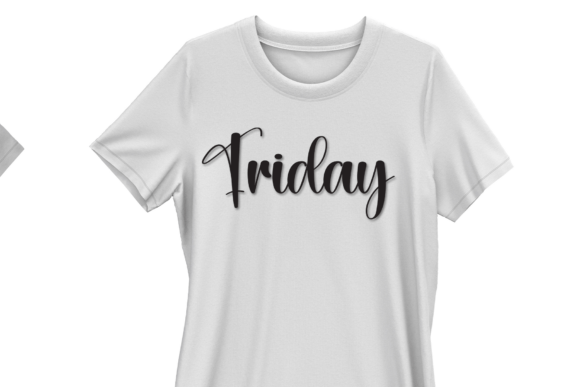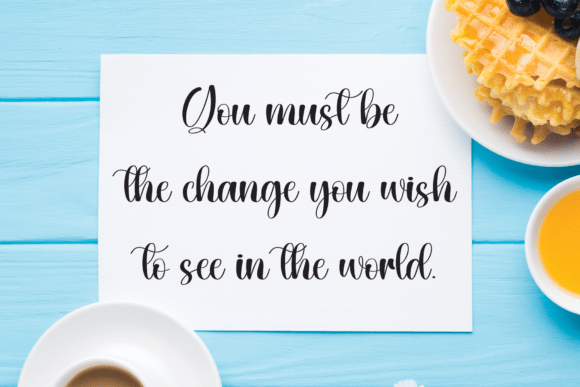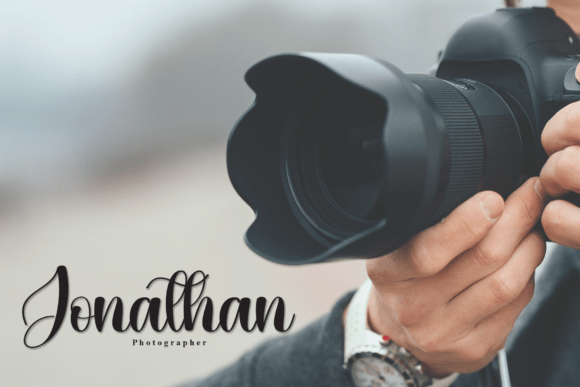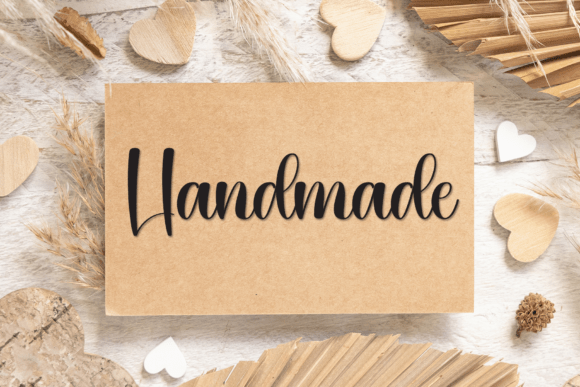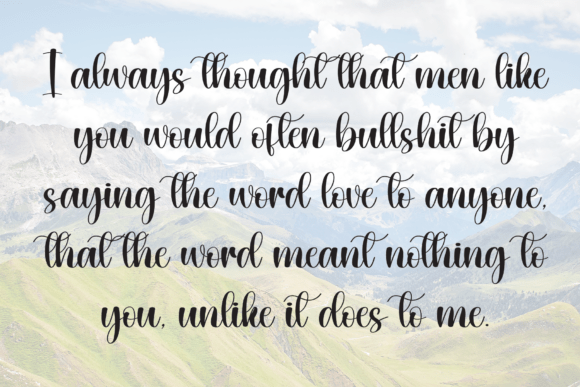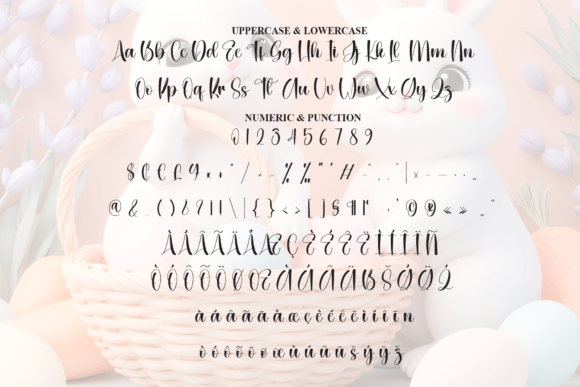
Discover the Whimsy of Bunny Cute Font
As a designer, have you ever stumbled upon a project where you wanted to convey a mix of playfulness and sophistication? Maybe you were creating an invitation for a friend’s wedding, or designing a social media campaign for a brand that’s a little quirky. You know that feeling when you’re searching for the perfect font to capture the essence of your creative vision?
Enter the Bunny Cute Font, a charming handwritten script font that effortlessly combines elegance and playfulness. With its flowing curves and natural rhythm, this font adds a personal, charming touch to any project. Whether you’re a seasoned designer or just starting out, the Bunny Cute Font is an invaluable addition to your toolkit, bringing warmth, sophistication, and creativity to every design.
Bunny Cute Font Key Features
- Font Family: Bunny Cute Font offers a range of font styles, including Regular, Bold, Italic, and Bold Italic.
- Unique Characteristics: Bunny Cute Font features adorable and cute characters, perfect for designs targeting a young audience, such as children’s books, toys, and nursery decor.
Bunny Cute Font Review
Overall, I think Bunny Cute Font is a delightful addition to any designer’s toolbox. It’s a playful, whimsical font that’s perfect for adding a touch of charm to your designs. ✨
- Customizable: This font comes with a range of variations, from solid to outline, and even a special ‘bunny’ version. It’s great to see the level of customization that’s gone into creating this font.
- Easy to use: The font is well-behaved and easy to work with, even in smaller sizes. This makes it a great choice for designers who want to add some personality to their work without the hassle of complicated font settings.
That being said, there are a few limitations to consider. ⚠️
- Limited language support: The font is currently only available in a limited number of languages, which may be a concern for designers working on multilingual projects.
- Lack of bold weights: While the font is great for adding a touch of whimsy, it’s not particularly well-suited for headlines or titles that require a bold, eye-catching font.
Overall, I think Bunny Cute Font is a fun and creative addition to any designer’s toolbox. While it may have its limitations, it’s a great choice for designers who want to add a touch of personality to their work.
Getting the Most Out of Bunny Cute Font
To get the most out of the Bunny Cute Font, use it in conjunction with other cute and playful design elements, such as pastel colors, cute icons, and whimsical illustrations.
– Use the font in headings and subheadings to add visual interest.
– Experiment with different font sizes and colors to create a visually appealing design.
– Use the font in conjunction with other cute fonts to create a cohesive and playful design.
The Bunny Cute Font is perfect for:
– Children’s birthday party invitations and decorations.
– Baby shower invitations and decorations.
– Cute and playful social media posts and graphics.
– Whimsical and imaginative marketing materials.
Alternatives to “Bunny Cute Font” for Designers
Bunny Cute Font is a popular font used for its playful and endearing nature, but sometimes designers may need alternatives that offer similar characteristics or cater to specific design needs. Here are four alternatives to consider: